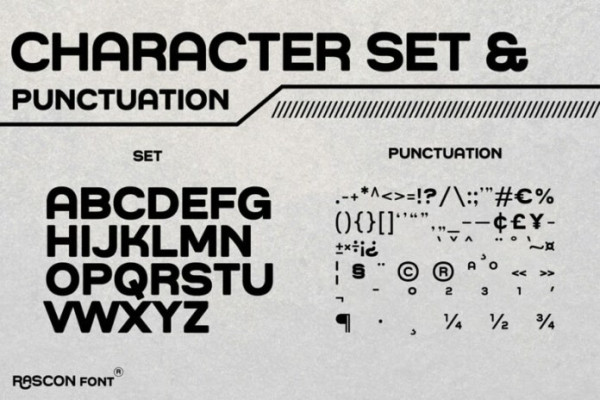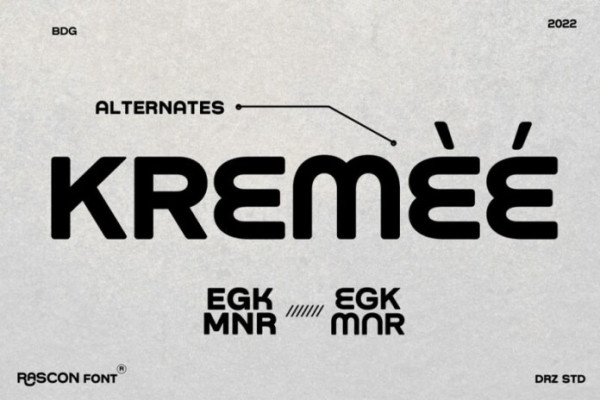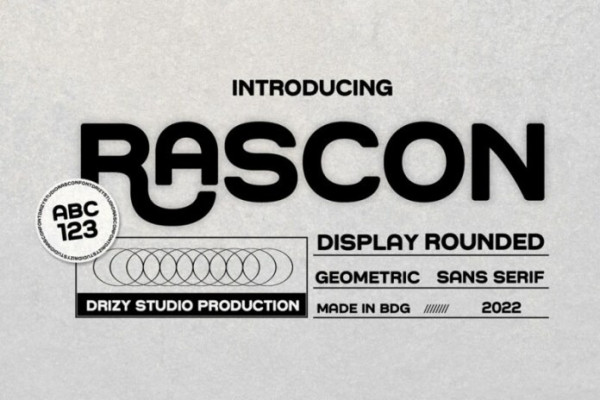
Rascon Font
Rascon Font is modern typeface created by Drizy Studio with visual elegance, smooth curves, and beautiful ligatures clear, making your work look true and attractive. Offering all the basic styles you will need especially modern theme project. This font is suitable for a wide variety of projects such as invitations, logos, branding, magazine, photography, card, product packaging, mugs, quotes, poster, labels, signatures, and more.